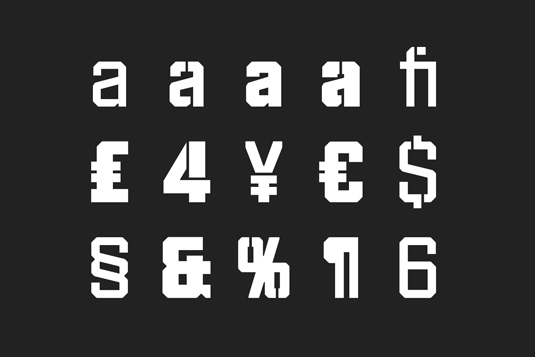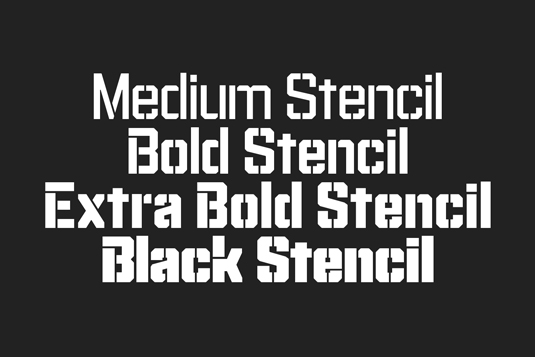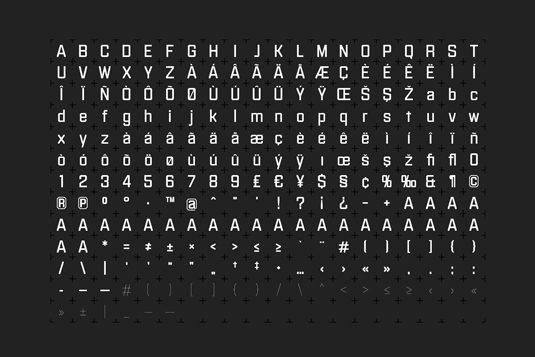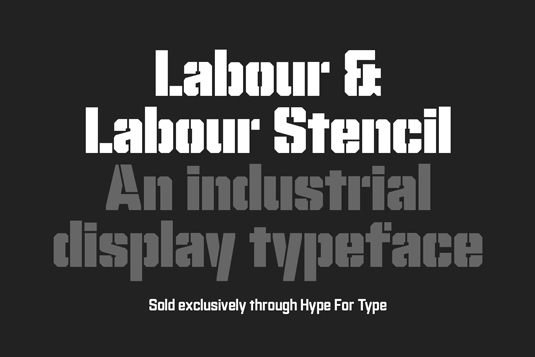
Font of the day: Labour
Every day we showcase the best fonts on the web. Today it's Labour by Holmkvist Creative.
Labour by Holmkvist Creative
Our font of the day is Labour, created by director and designer Robert Holmkvist of London-based design studio Holmkvist Creative. "Labour is a multi-versatile type family created exclusively for HypeForType," he comments. "It's an industrial display typeface available in four weights; medium, bold, extra bold and black. It is also available as a stencil version.
"With its compact proportions and tight letter spacing, Labour looks best in headlines and display sizes. The first 200 orders of either the regular, stencil or the complete set comes with a free limited edition tabloid specimen."